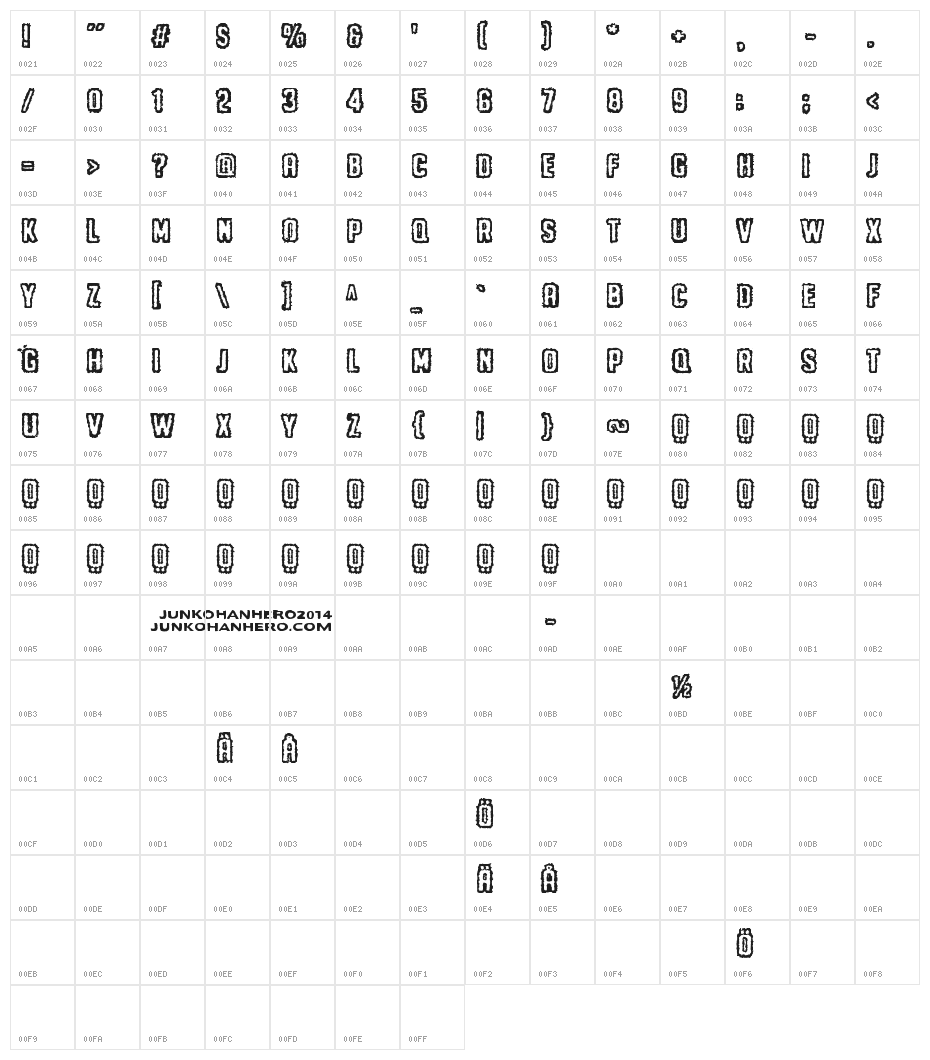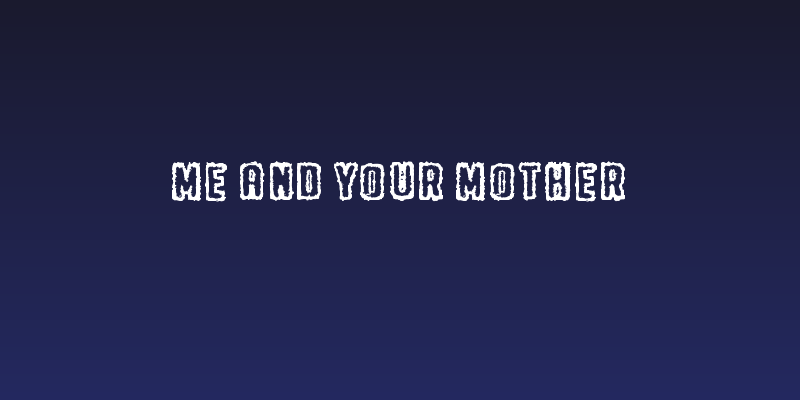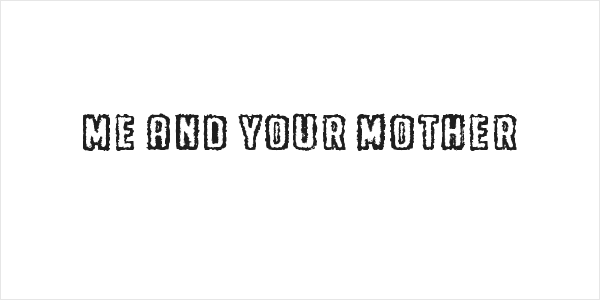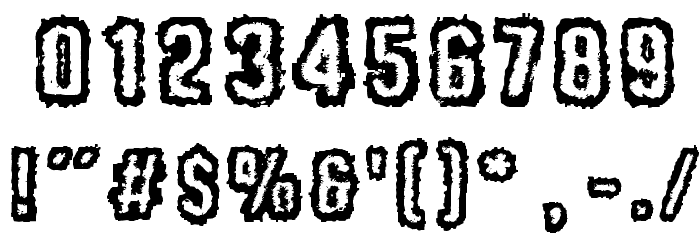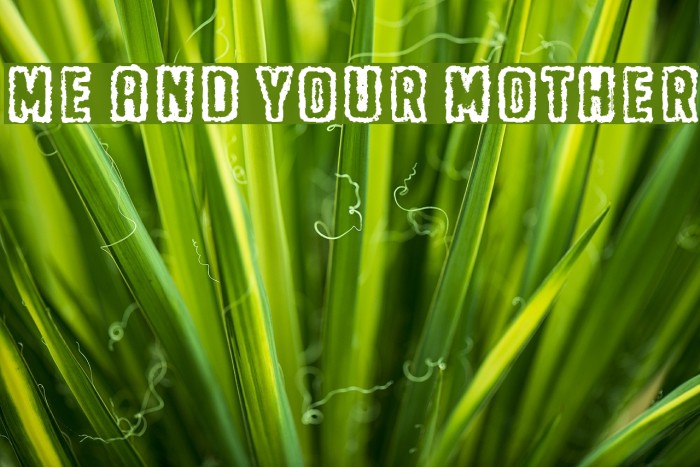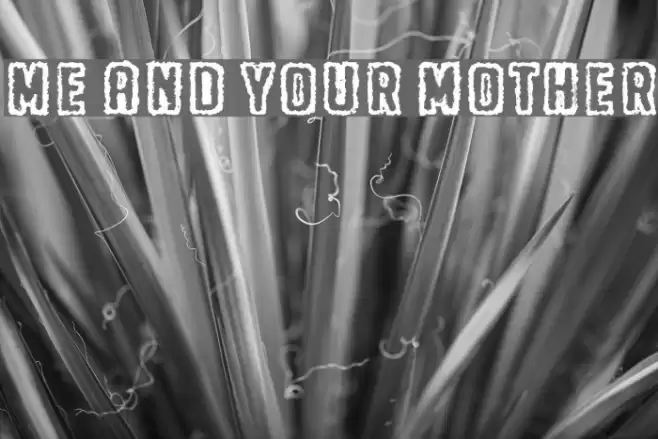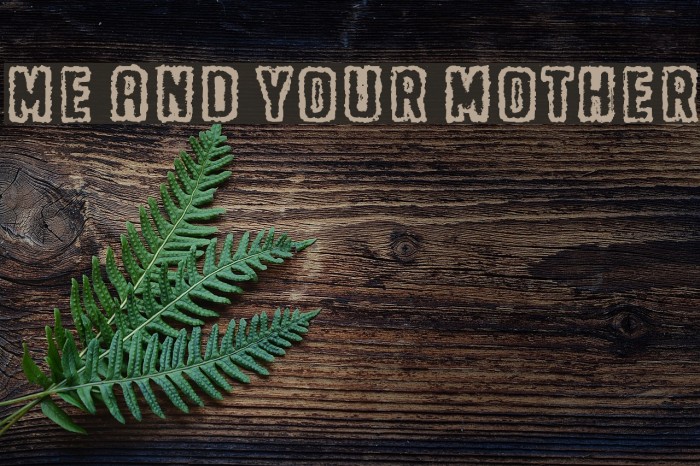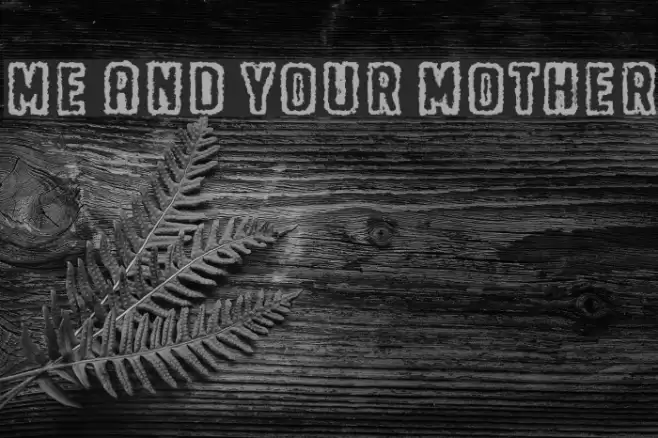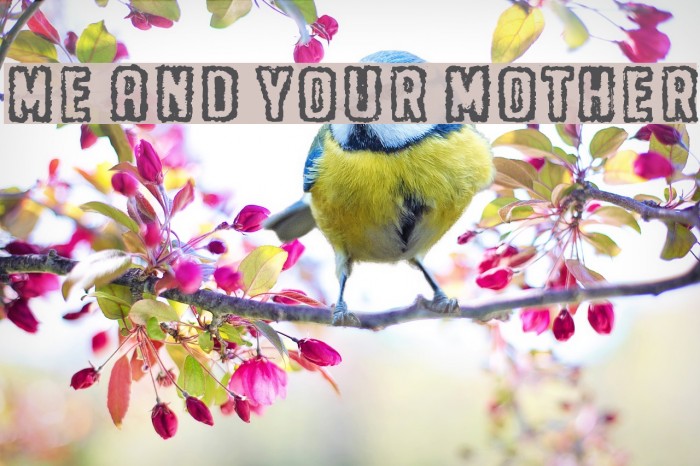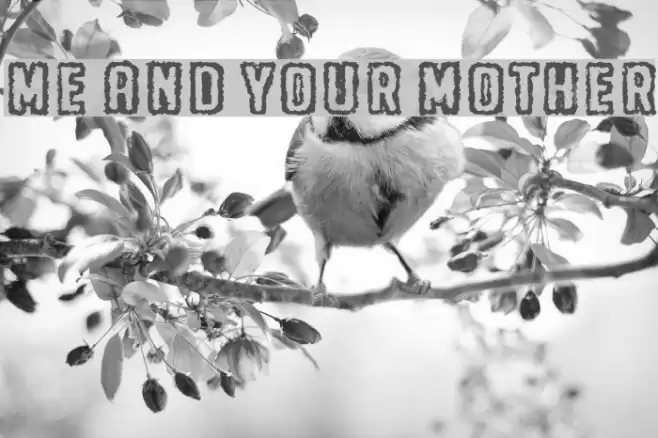
Me and your mother Font
Me and your mother Description
This font features a bold and rugged design with a distressed, textured appearance. Each character is outlined with a thick, uneven border that gives it a hand-drawn, organic feel. The letters are uppercase and maintain a consistent height, contributing to a uniform look despite the irregular edges. The numbers and special characters follow the same style, ensuring cohesion across all elements. This font's unique style is eye-catching and adds a playful, artistic touch to any design.
| Proposed Projects | Ideal for posters, album covers, branding projects, and any design requiring a bold, artistic statement. |